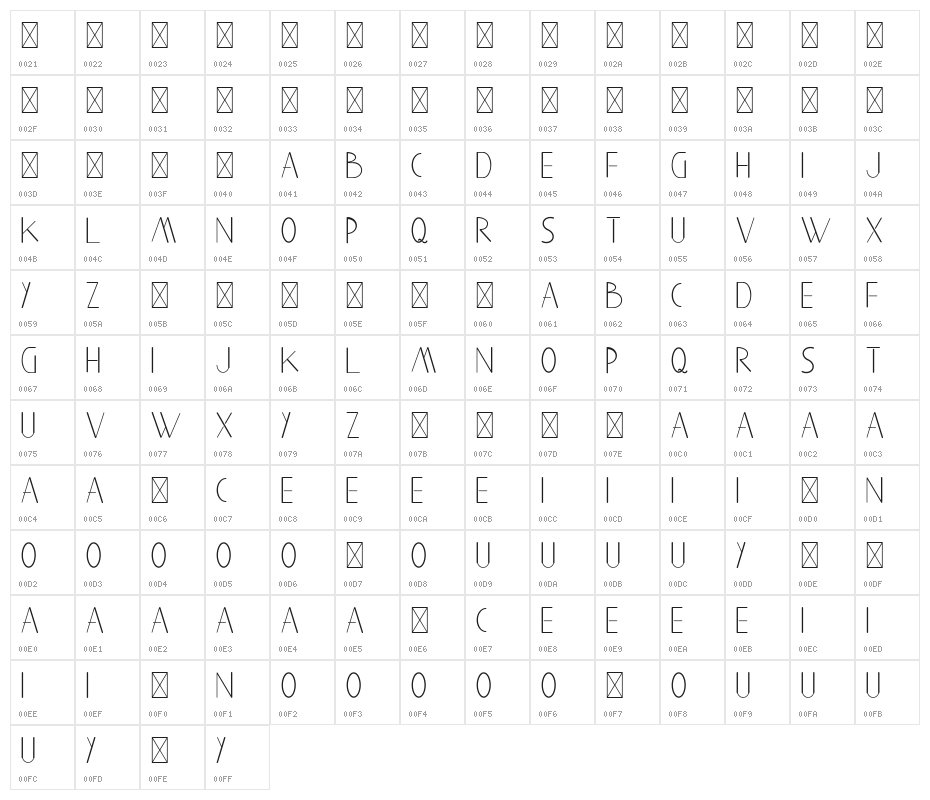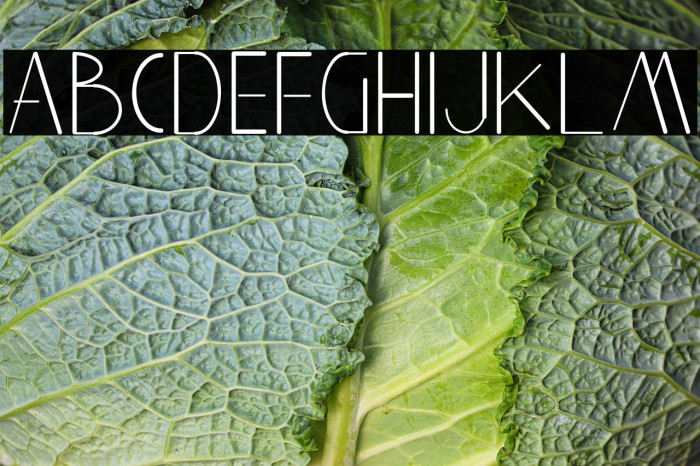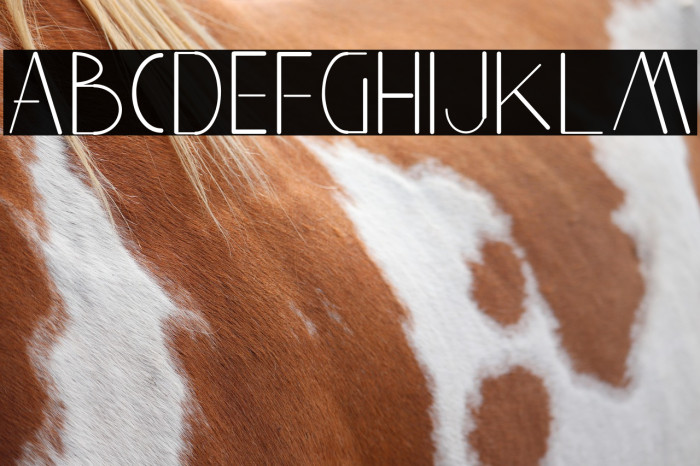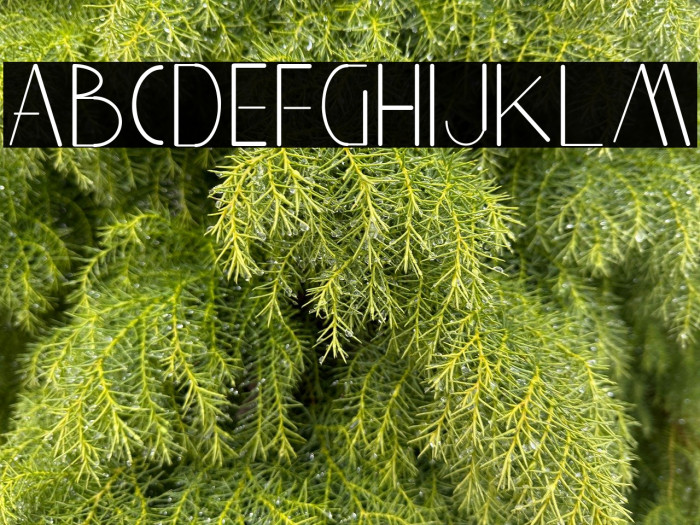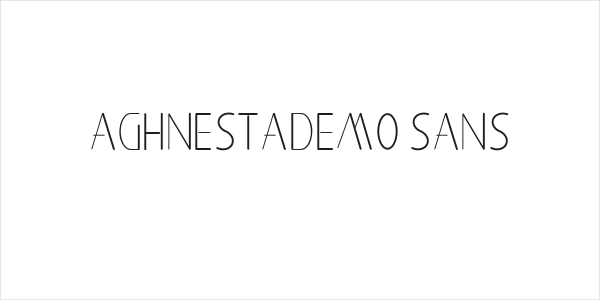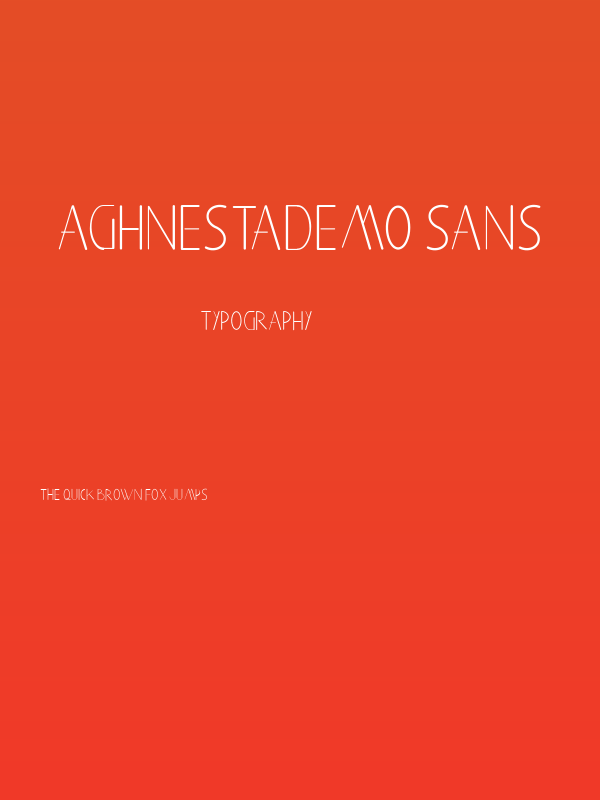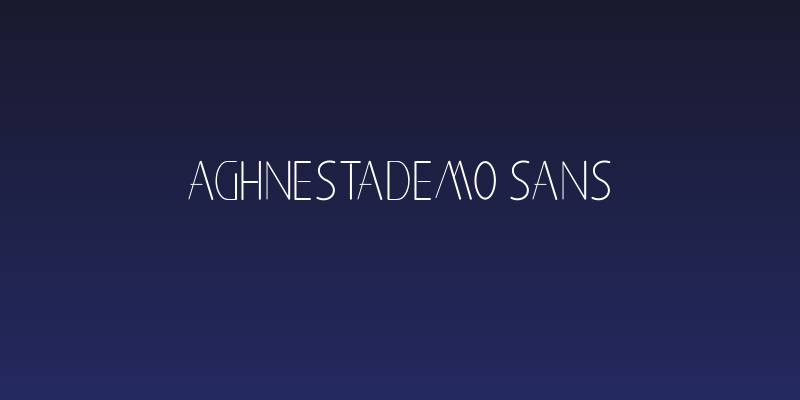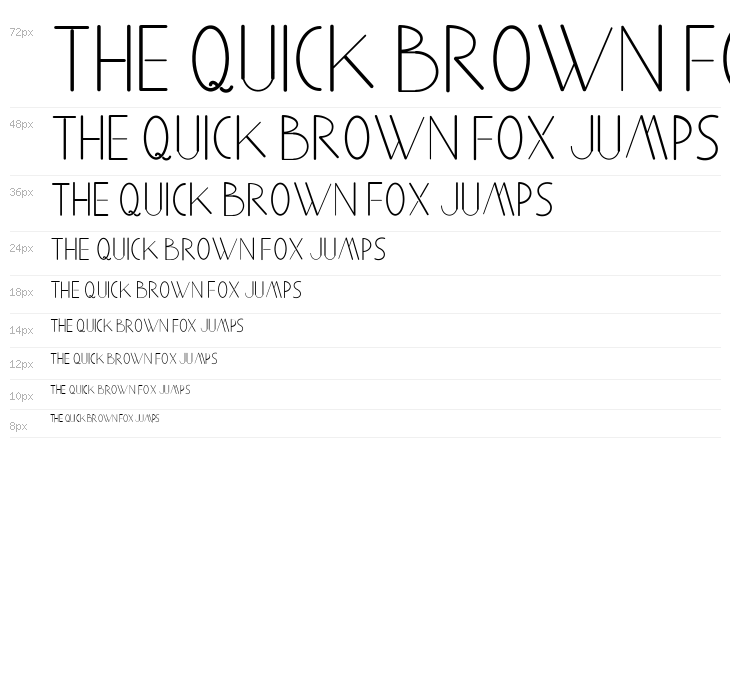
Aghnestademo Sans Font
Aghnestademo Sans Description
This font features a modern and minimalist design with clean, geometric lines. The uppercase letters are characterized by their tall, narrow shapes and sharp angles, giving them a sleek and contemporary appearance. The lowercase letters maintain a similar style, ensuring consistency across the typeface. The numerals are distinct and easily readable, following the same geometric principles. Special characters are included, designed to complement the overall aesthetic. The font's simplicity and elegance make it versatile for various design applications.
| Proposed Projects | Ideal for branding, editorial design, and digital interfaces where a modern and clean aesthetic is desired. |